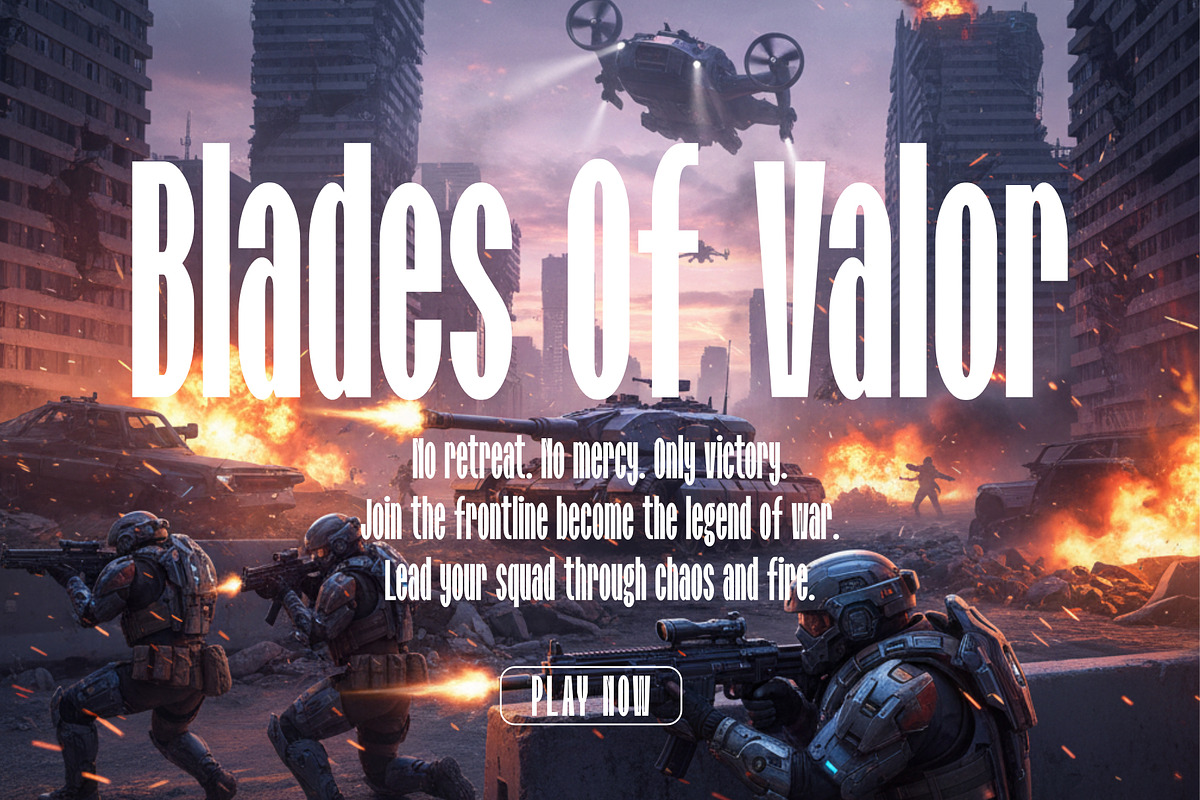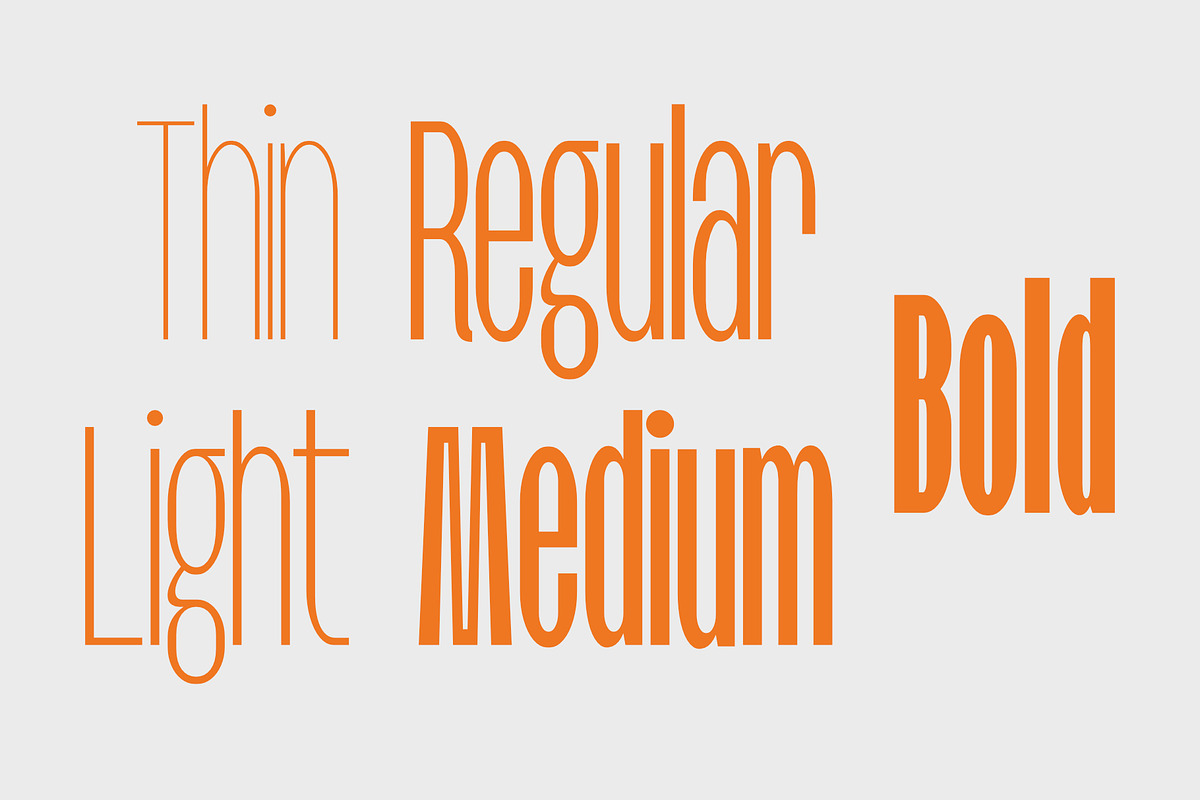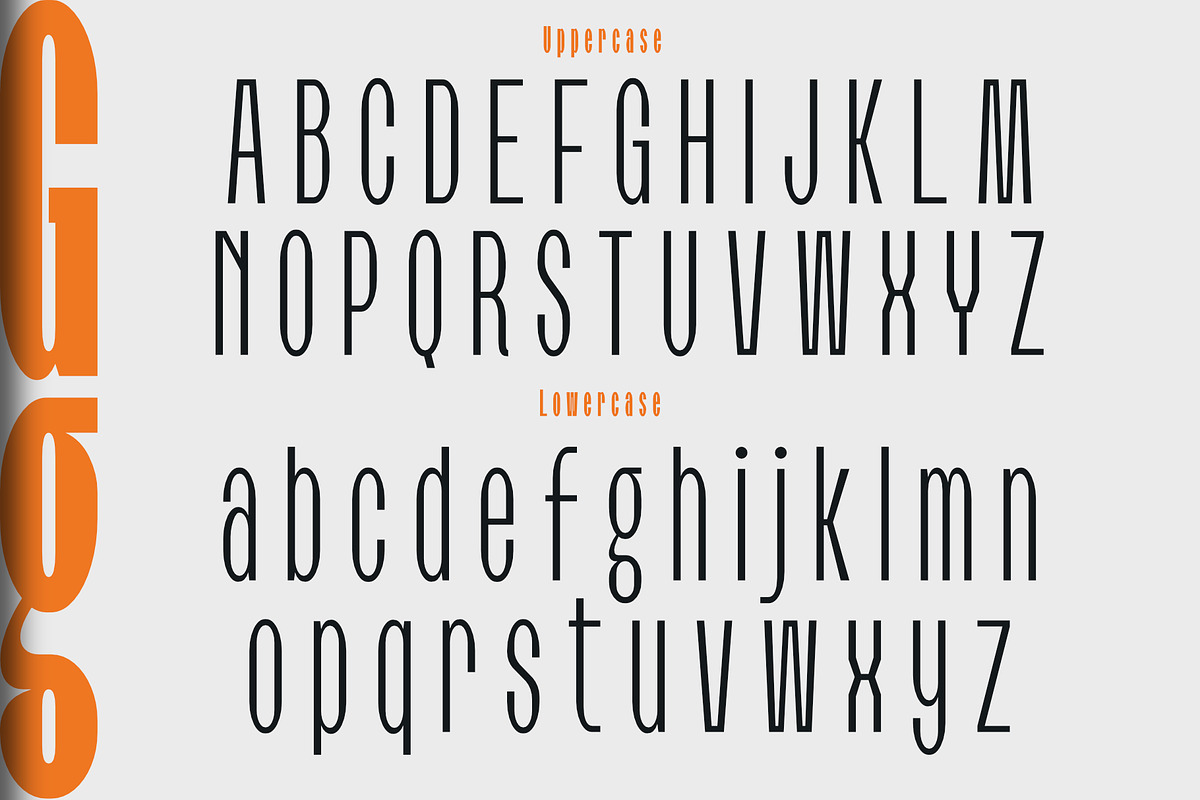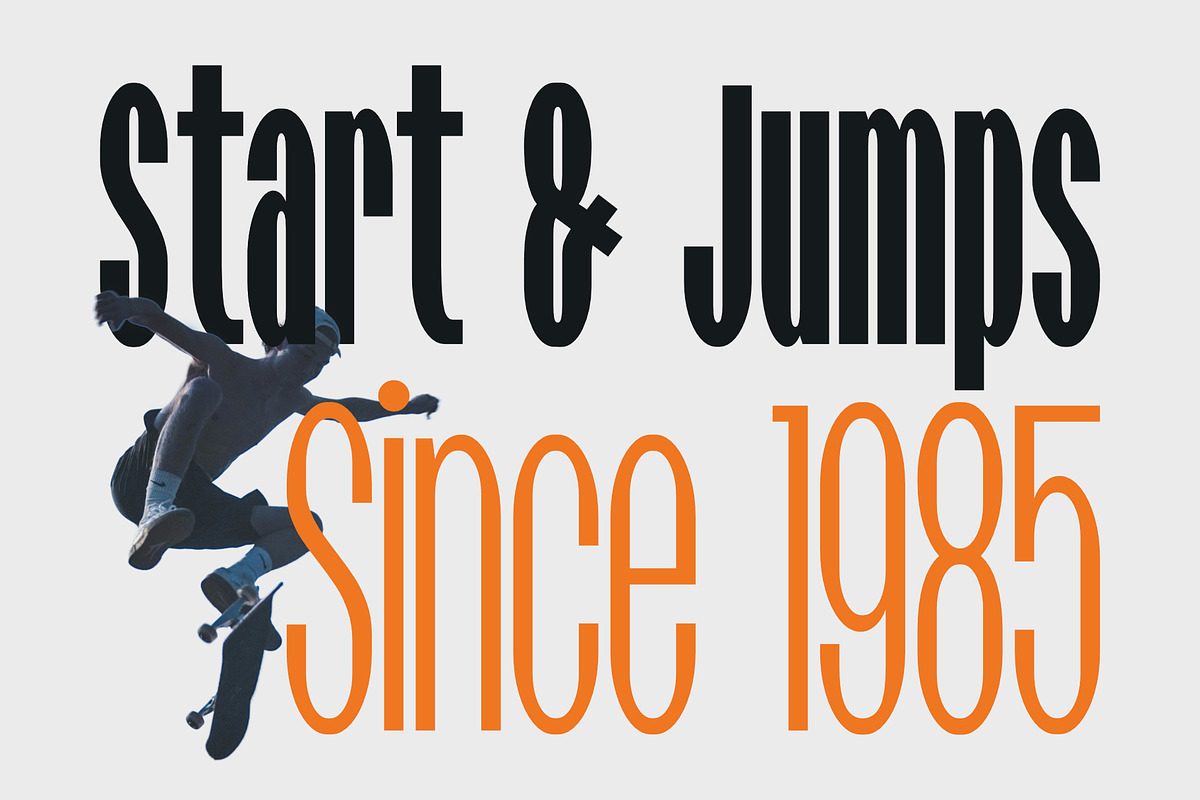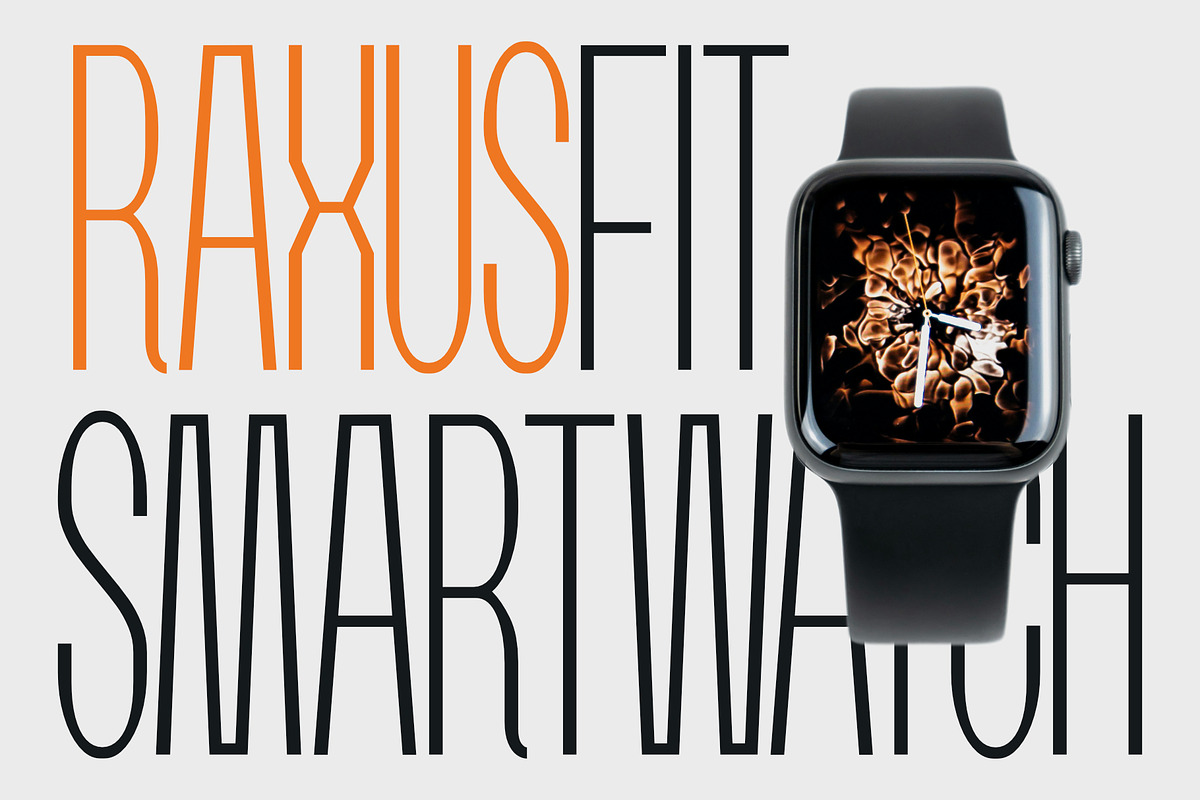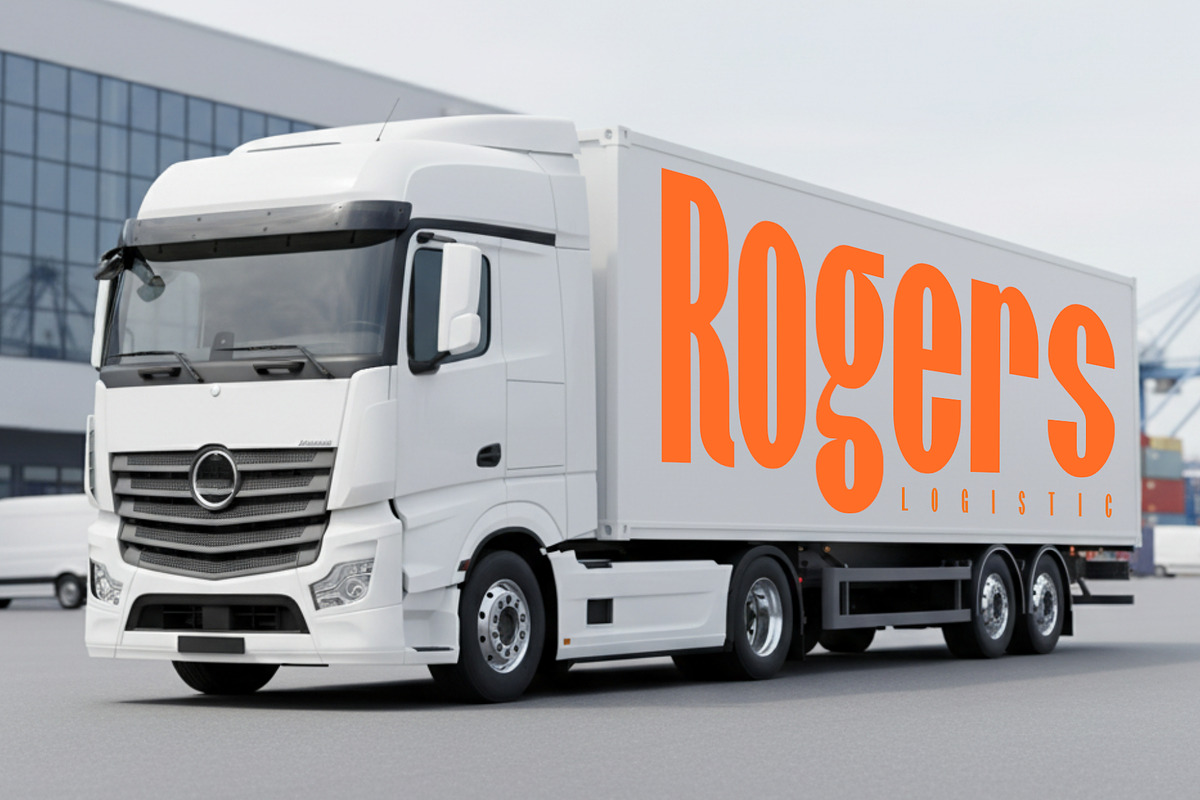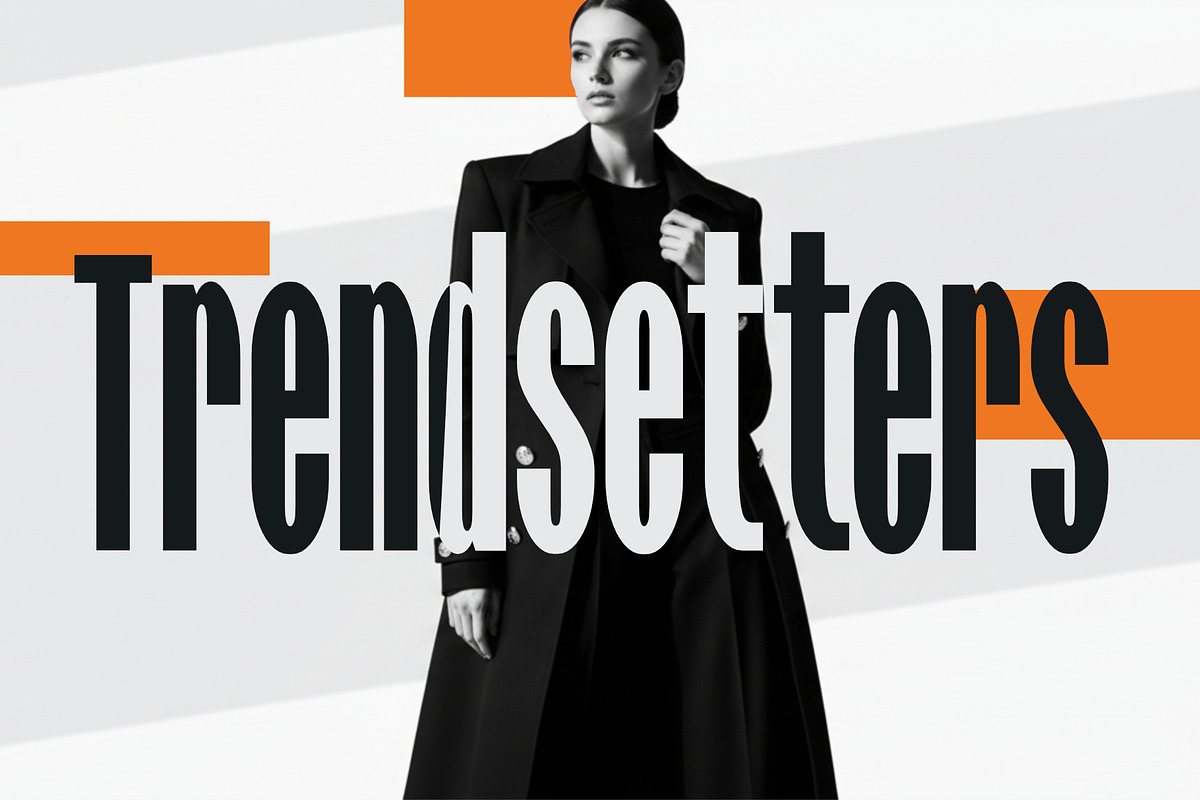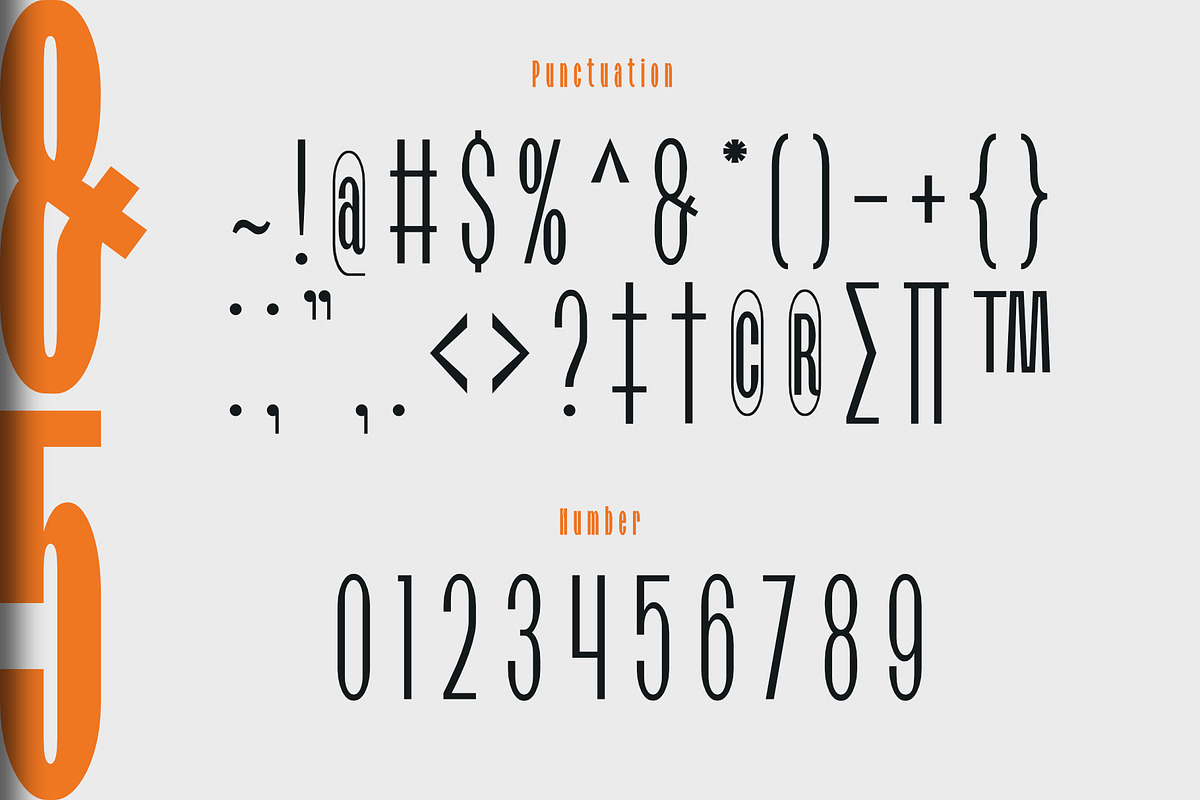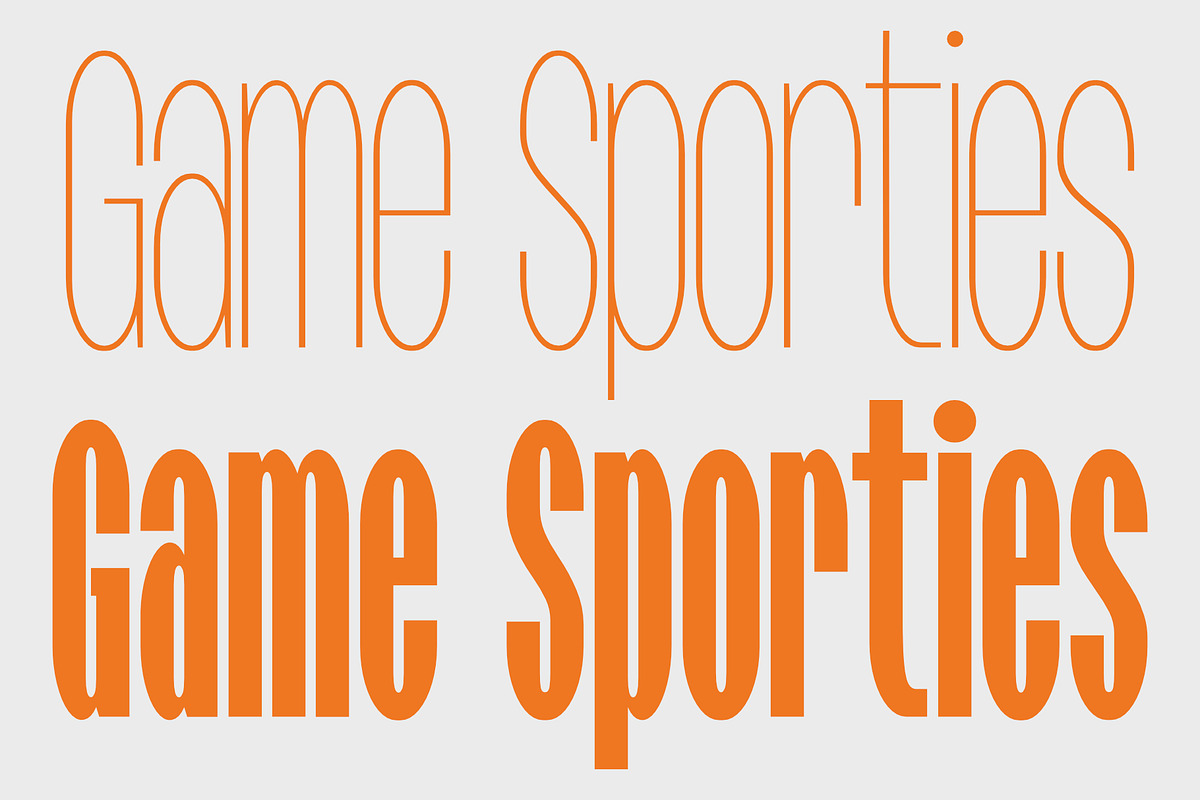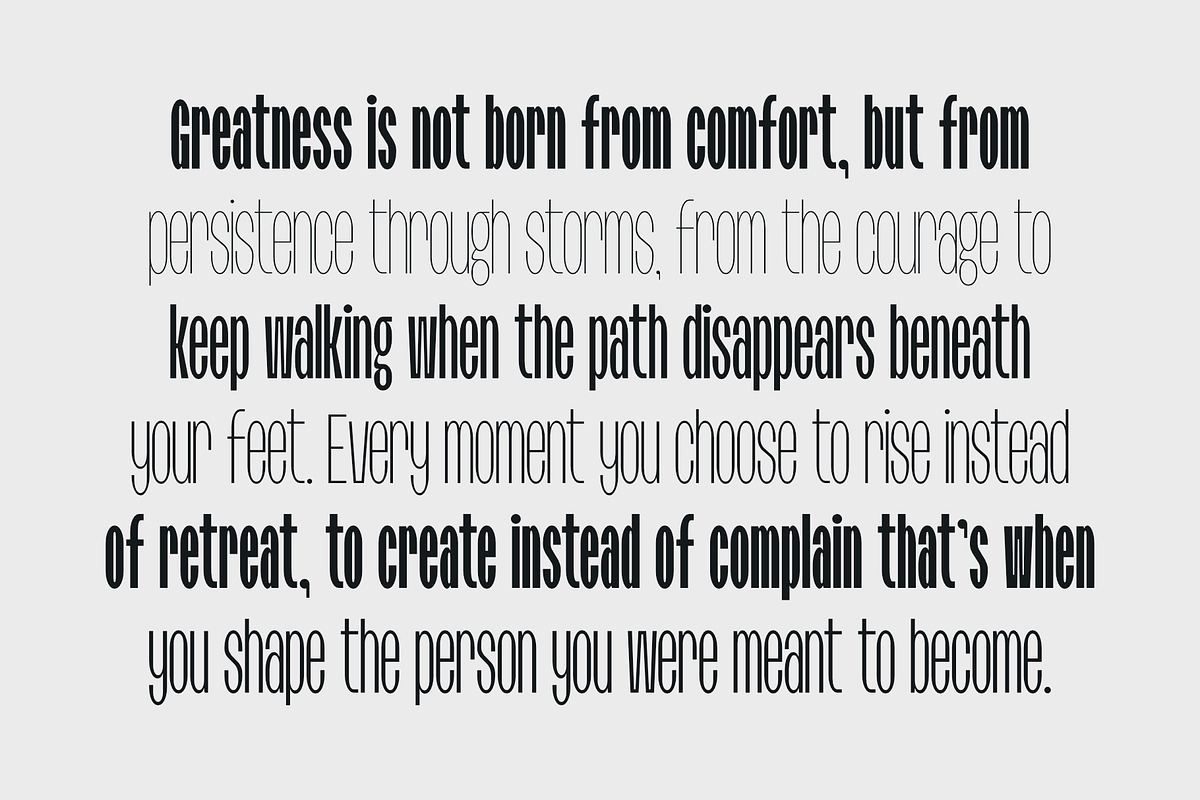
Begdruxs - Condensed Sans Serif
Begdruxs Condensed Sans Serif is a versatile and contemporary typeface distinguished by its narrow and sleek letterforms. Designed for space efficient layouts, it delivers a clean, stylish, and highly readable appearance perfect for both modern branding and professional design projects.
This font family includes 5 styles, ranging from Thin to Bold, providing excellent flexibility for diverse design applications.